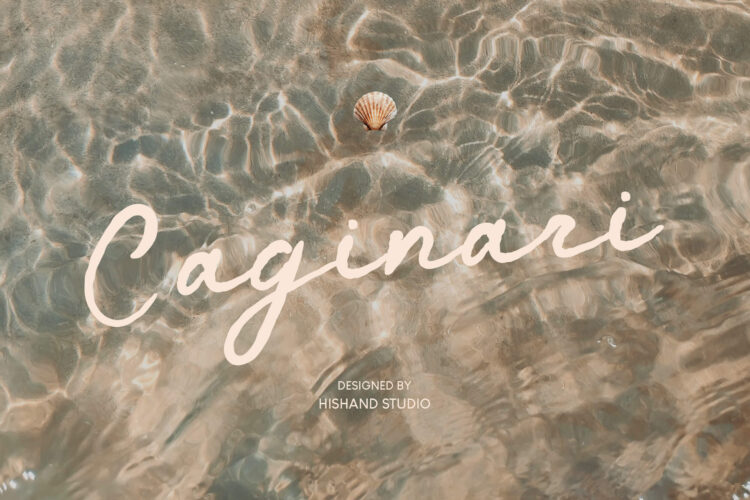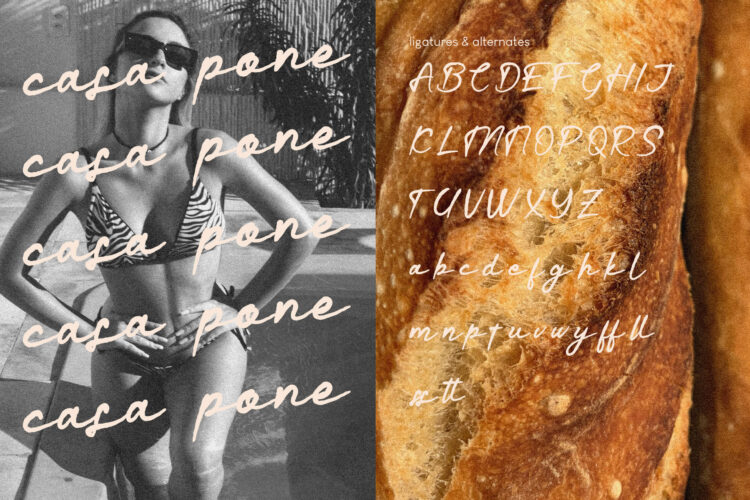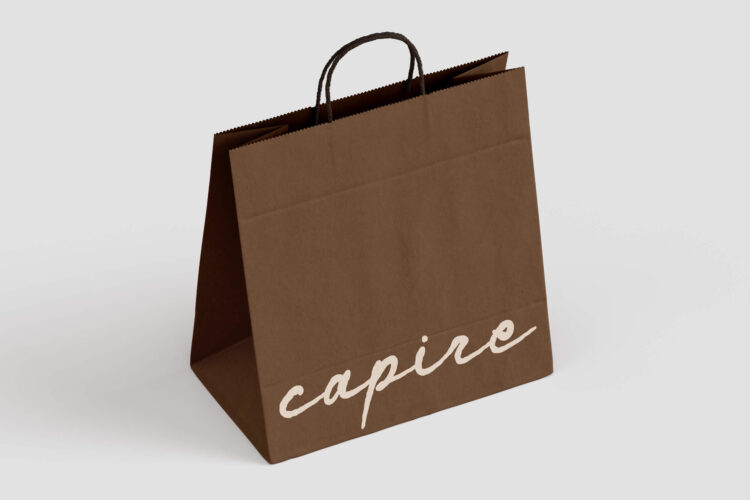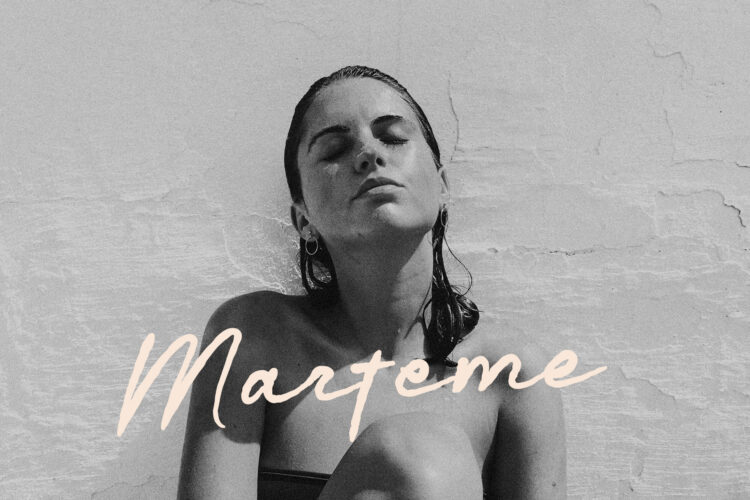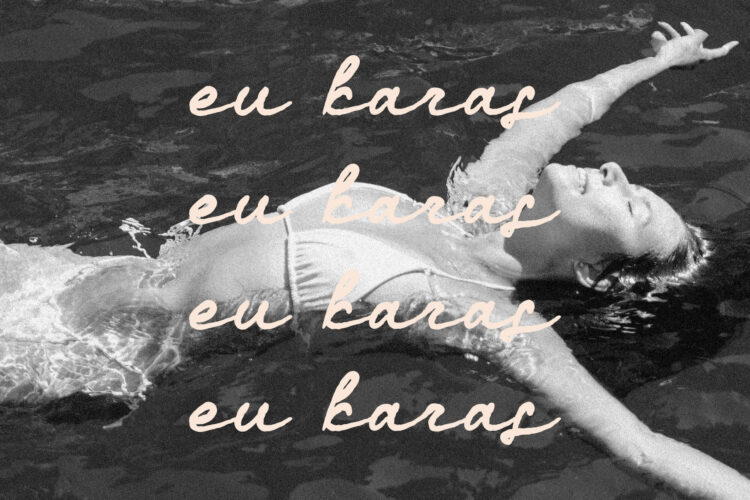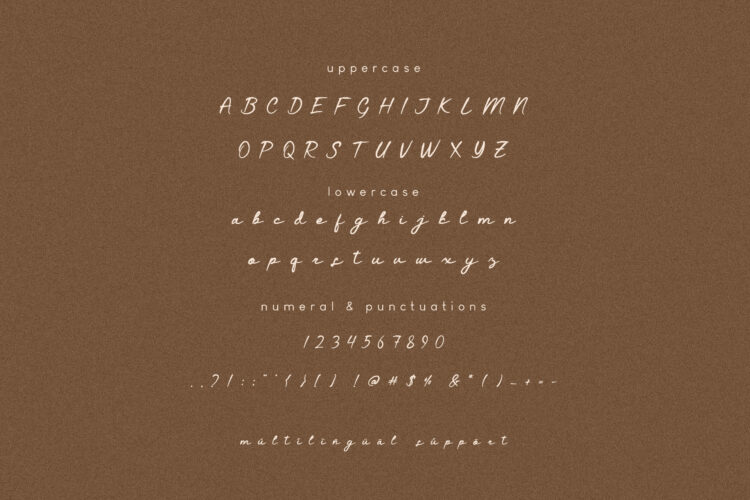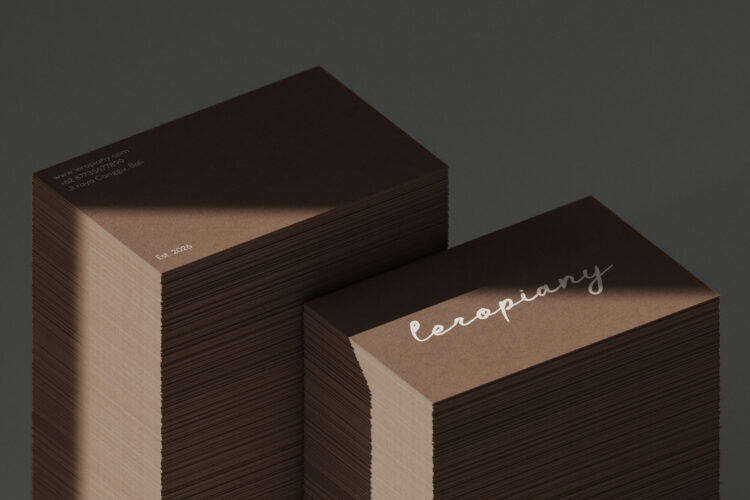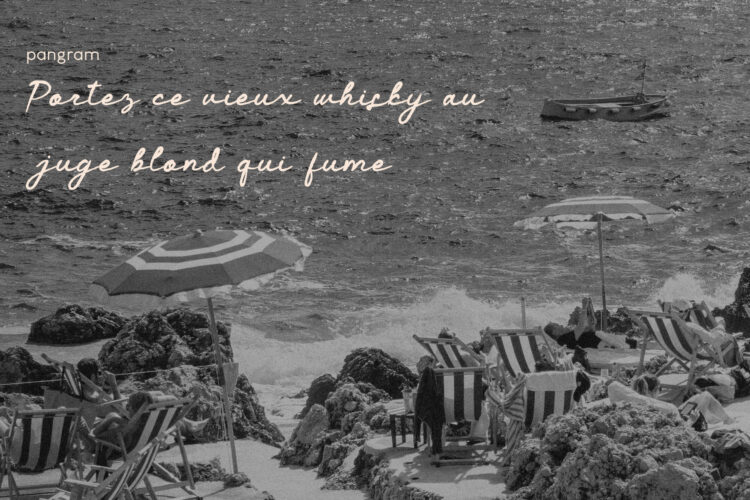
Caginari is a flowing script font that captures the ease and warmth of a slow coastal morning. Its long, connected strokes move with a natural rhythm, swinging low into wide loops before rising again, giving every word a relaxed, handwritten feel. The letterforms are casual but confident, striking a balance between elegance and approachability that makes them equally at home on a wedding invitation or a beachside brand.
Inspired by the quiet movement of water and sand, Caginari Script Font carries a gentle, unhurried energy in every curve. The connecting strokes flow smoothly from one letter to the next, mimicking the effortless motion of handwriting, while the varying loop sizes add a sense of organic rhythm rather than mechanical repetition. This gives the font a personal, almost intimate quality, as though each word was written by hand rather than typed.
Despite its casual charm, Caginari is built with careful attention to legibility and consistency. The slant remains steady throughout, and the spacing between letters is balanced so that words read smoothly even at smaller sizes. This makes it a practical choice for a wide range of applications, not just decorative headlines.
Caginari works beautifully for logos, packaging, social media graphics, and editorial headlines, especially in projects with a coastal, organic, or lifestyle theme. Its generous curves and confident slant give it a signature look that stays legible even at larger tracking or paired with simple sans serif body text. It also pairs well with minimal layouts, where its expressive linework can stand out against clean negative space.
From boutique hotels to skincare labels to personal branding projects, Caginari brings a soft, breezy character that feels both personal and polished. It suits brands that want to express warmth, authenticity, and a touch of nostalgia, whether that’s a small coastal business, a wellness brand, or a designer looking for something that feels handmade rather than digital.
Simple to use and easy to love, Caginari brings a natural, flowing energy to any project, making it a versatile addition to a designer’s font library.
- uppercase
- lowercase
- ligatures
- alternates
- multilingual support